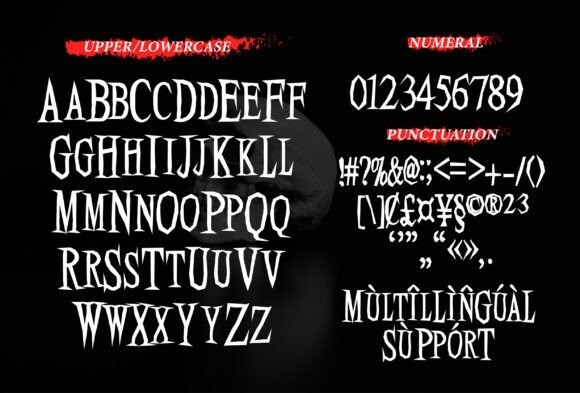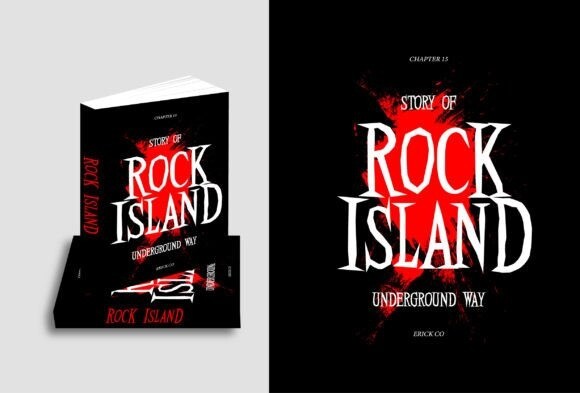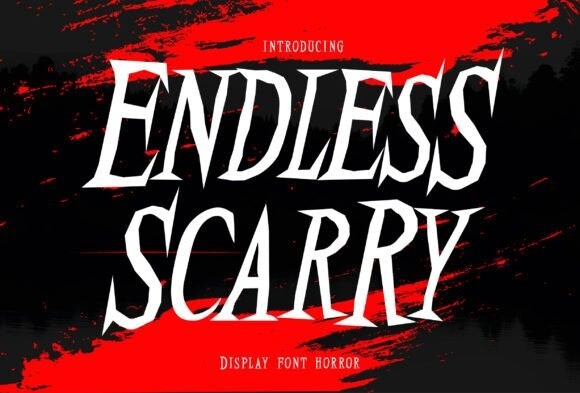
Endless Scarry Font
Endless Scarry Font – a font that perfectly combines strength and elegance. The impactful aura this font emanates is electrifying due to its unique amalgamation of acute edges and sinuous curves, underlined by a slick vertical inclination that enhances its creative edge. Endless Scarry is more than just beautiful form – it is a functional masterpiece, tailored to adapt seamlessly to varied design needs – be it bold t-shirt prints, captivating movie posters, gripping book covers, or mood-conveying quotes. Elevate your designs with our extra decorative elements that come along with the font for an even more personalized touch.
Endless Scarry is loaded with features designed to streamline your design journey. Find a complete set of upper and lower case letters, numbers, and punctuation marks along with support for various international languages. With simple installation procedures, it is conveniently accessible on both PC and mobile devices. It is universally compatible, fitting effortlessly into design tools like Adobe Illustrator, Adobe Photoshop, Adobe InDesign, and even Microsoft Word, ensuring a smooth creative journey without the need for extra software.